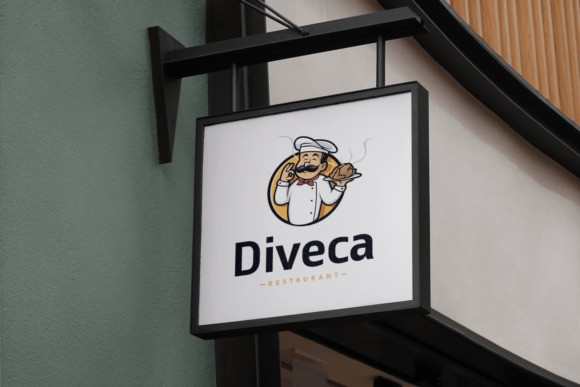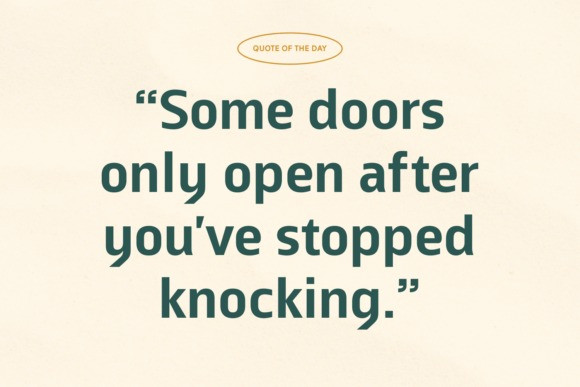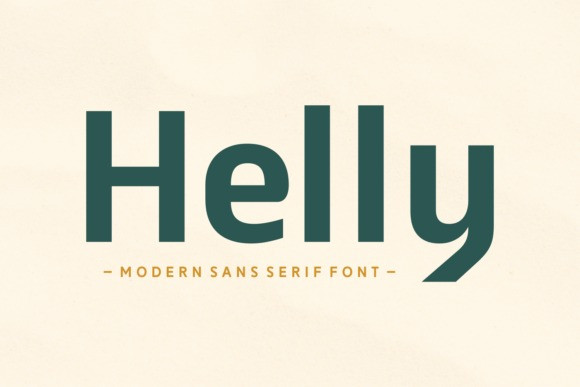
Helly Font
Helly Font is a sleek and modern sans serif font that blends simplicity with a touch of character. Its clean lines and subtle design details, like the unique tail on the “y,” make it stand out while remaining highly versatile. Perfect for branding, headlines, logos, and digital design, Helly delivers a professional yet approachable feel for any creative project.